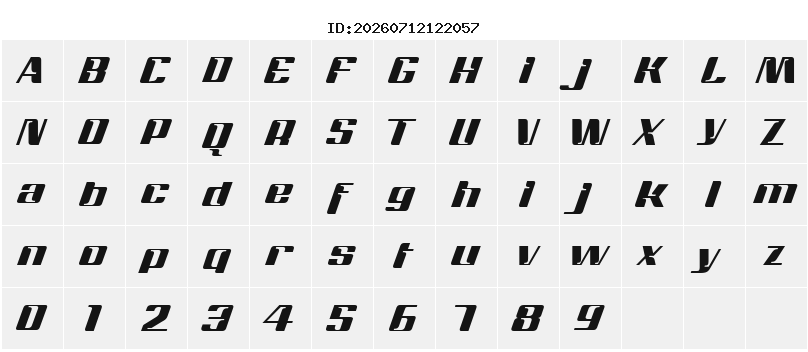
• Font Name: Magenta
• Designer: Florian Bambhout
About Magenta.ttf
Magenta.ttf is a modern, elegant sans-serif font designed for ultimate readability and visual harmony. Perfect for branding, headlines, web design, and print materials.